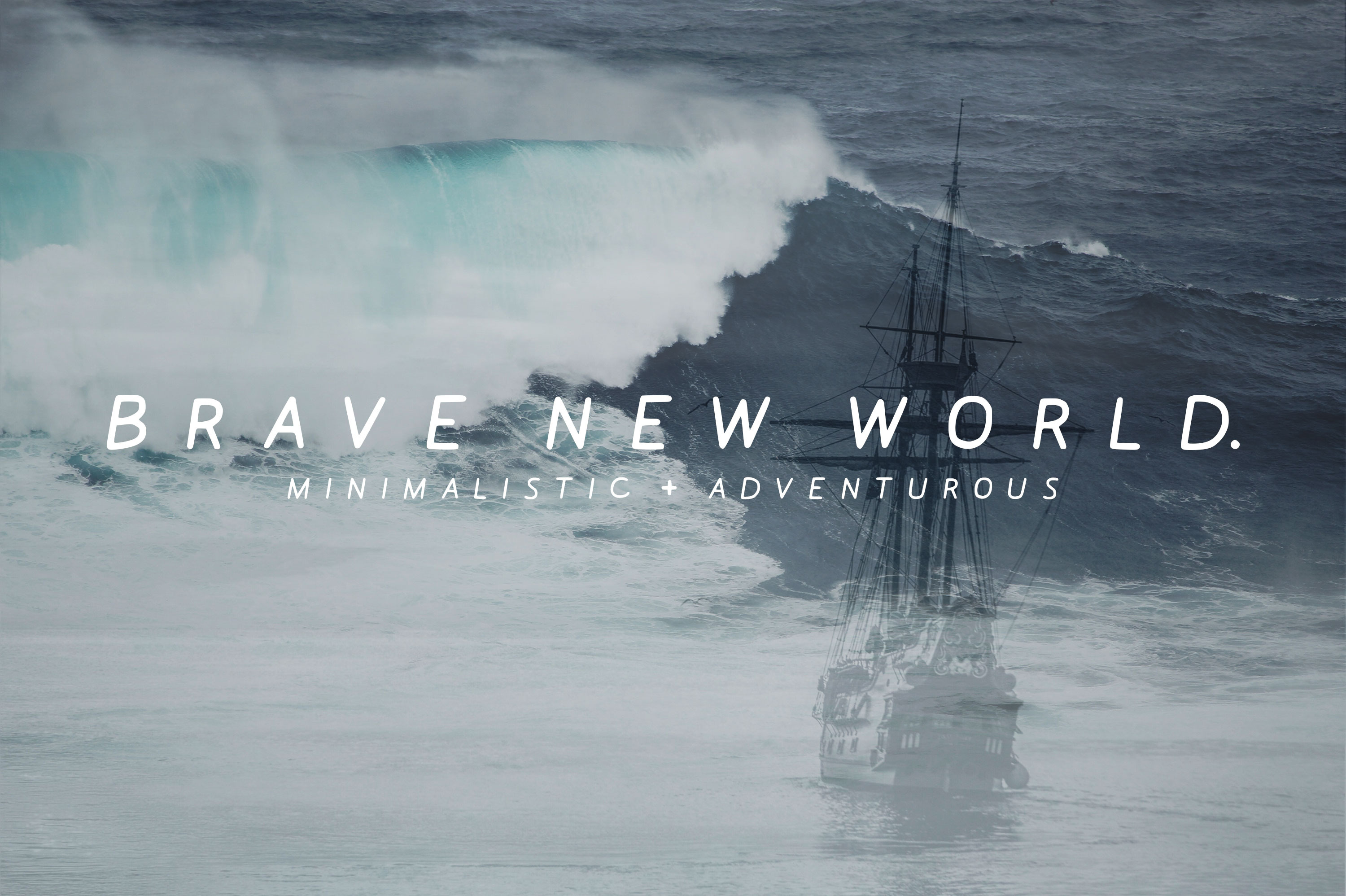
Brave New World | Font
Inspired by new seasons and new adventures, Brave New World is a daring, minimalistic sans serif.
Styled as a daring tie between the clean and the bold, this font intends to reach greater depths and see new horizons. Perfect for branding, websites, quotes + more!
For the adventurous, the bold and the brave.